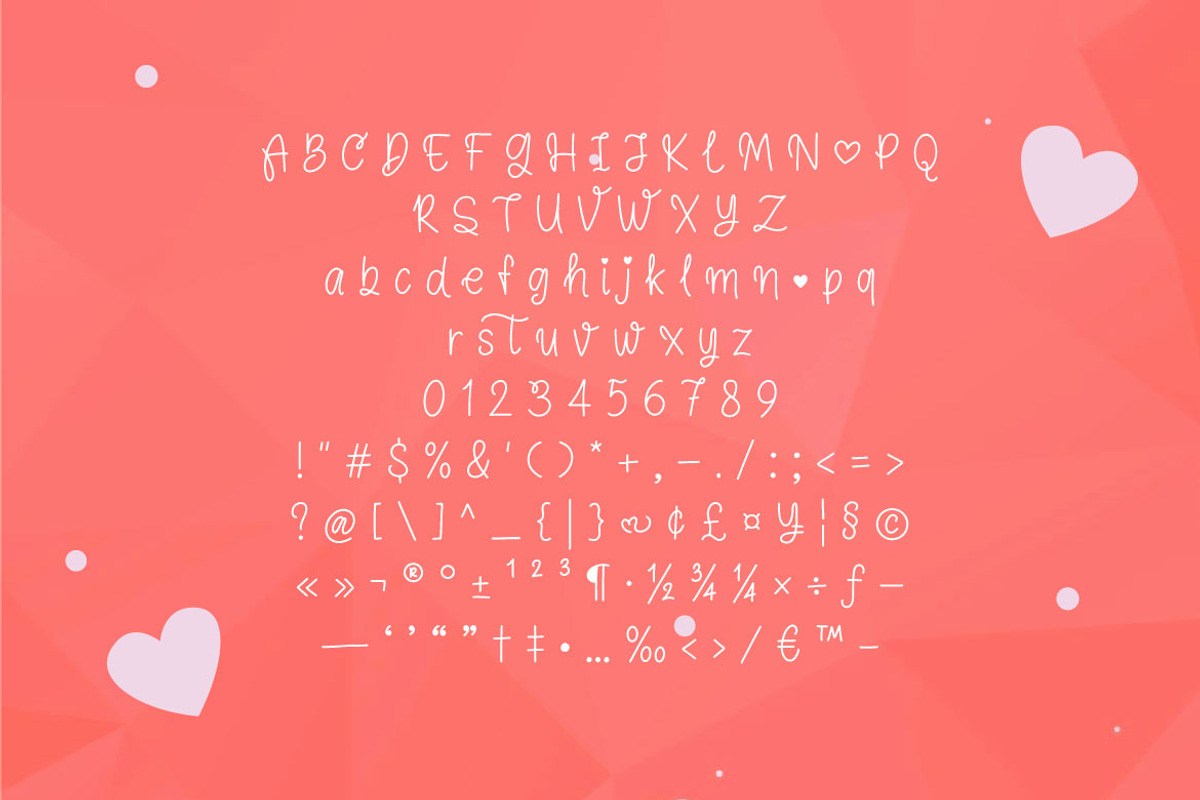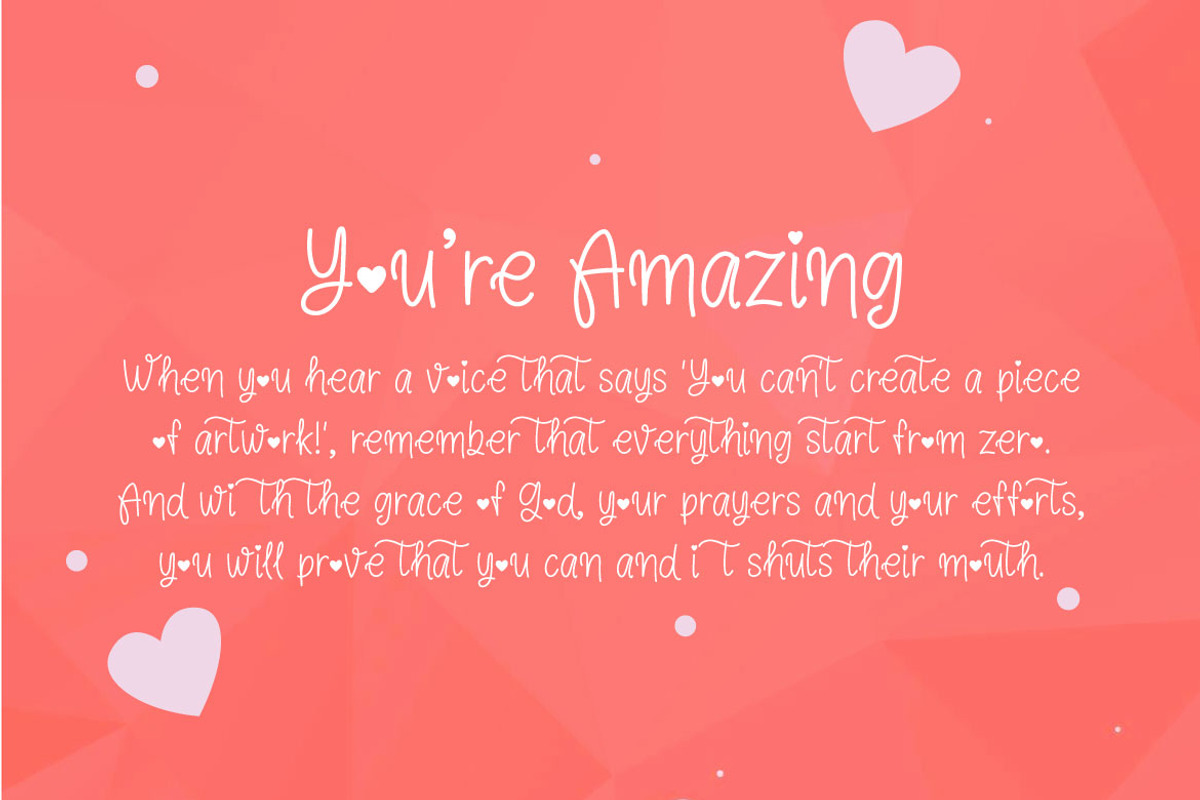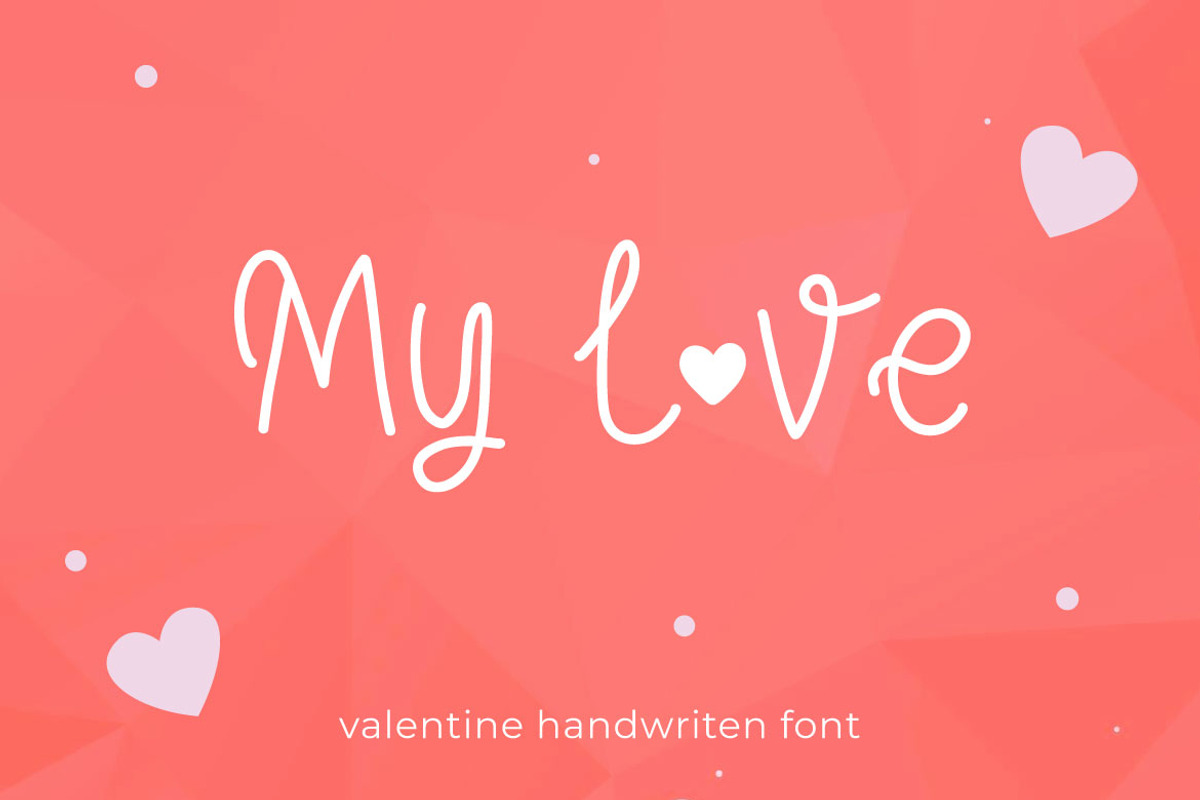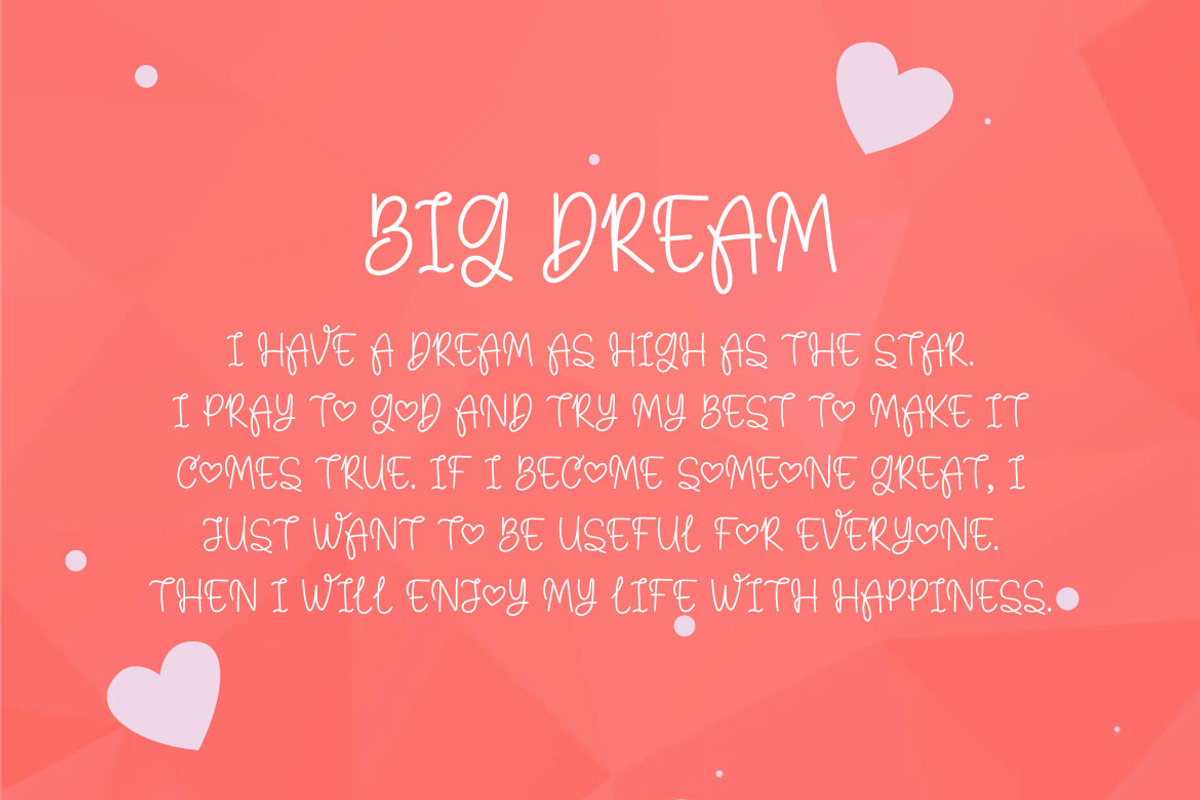
My Love - Valentine Handwritten Font
Hello! MY LOVE is a playful handwritten font. My Love can be used in any works such as valentine card, birthday card, flyer, book title, advertisement, social media content, logo and many more.